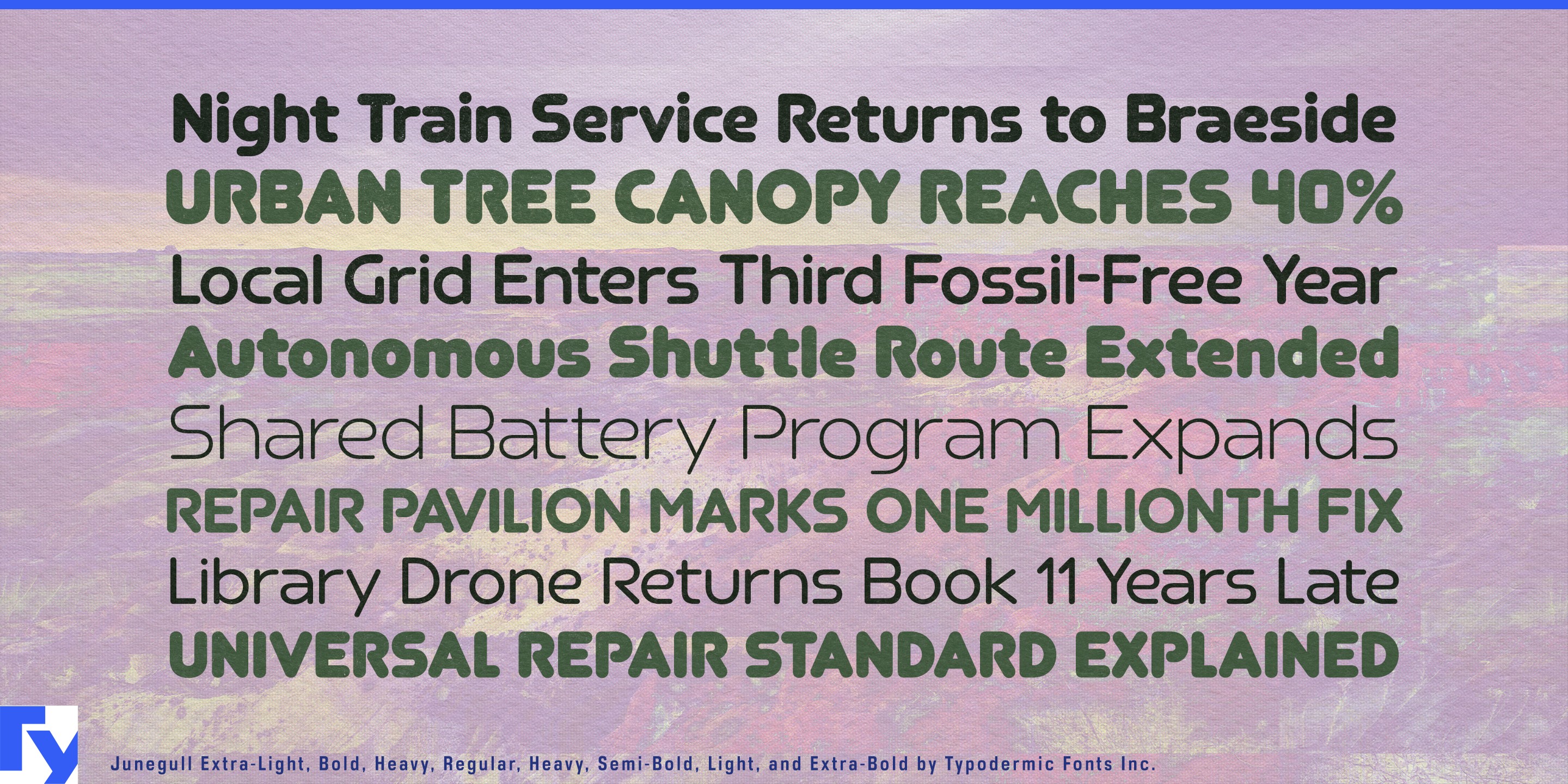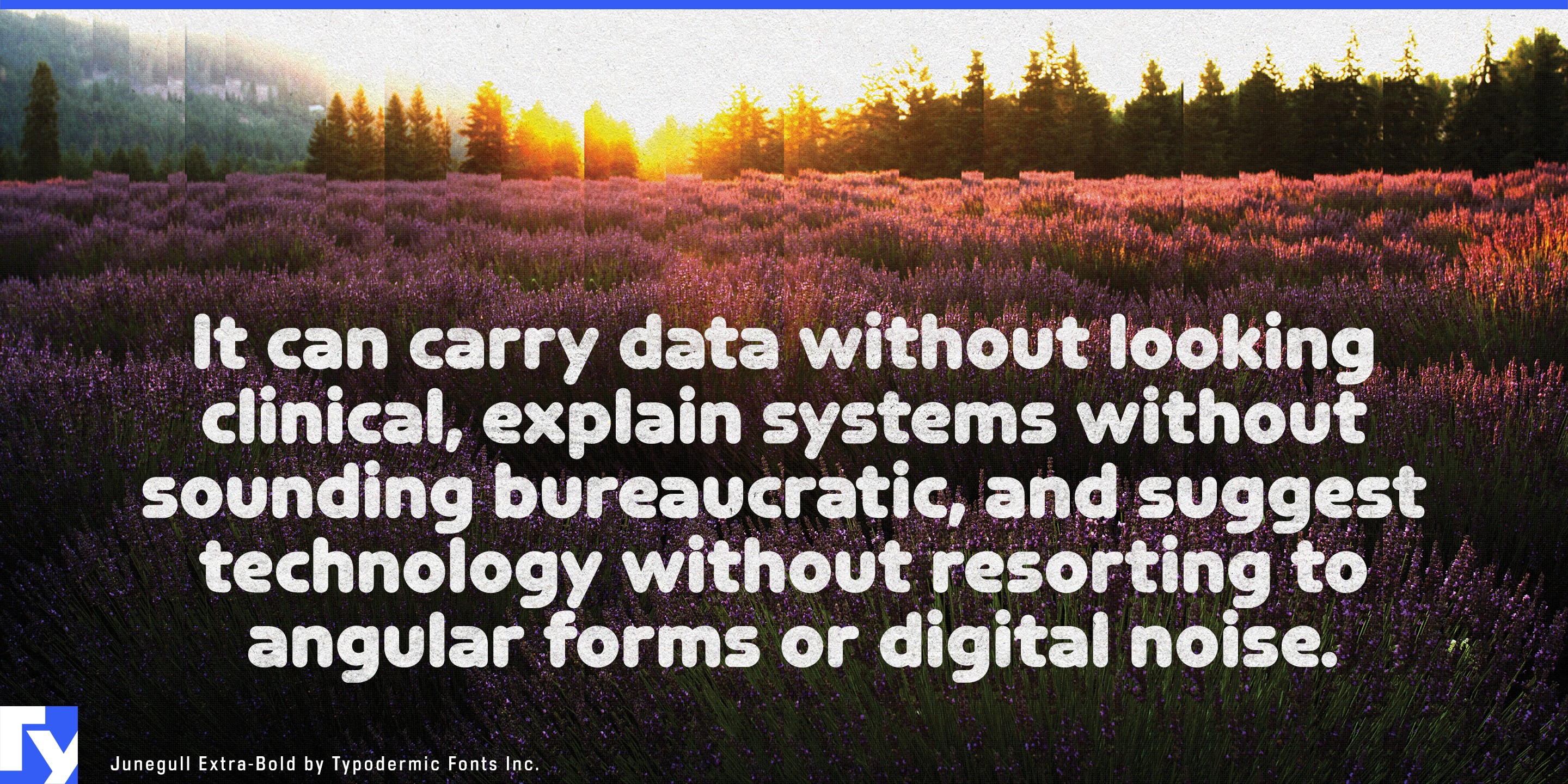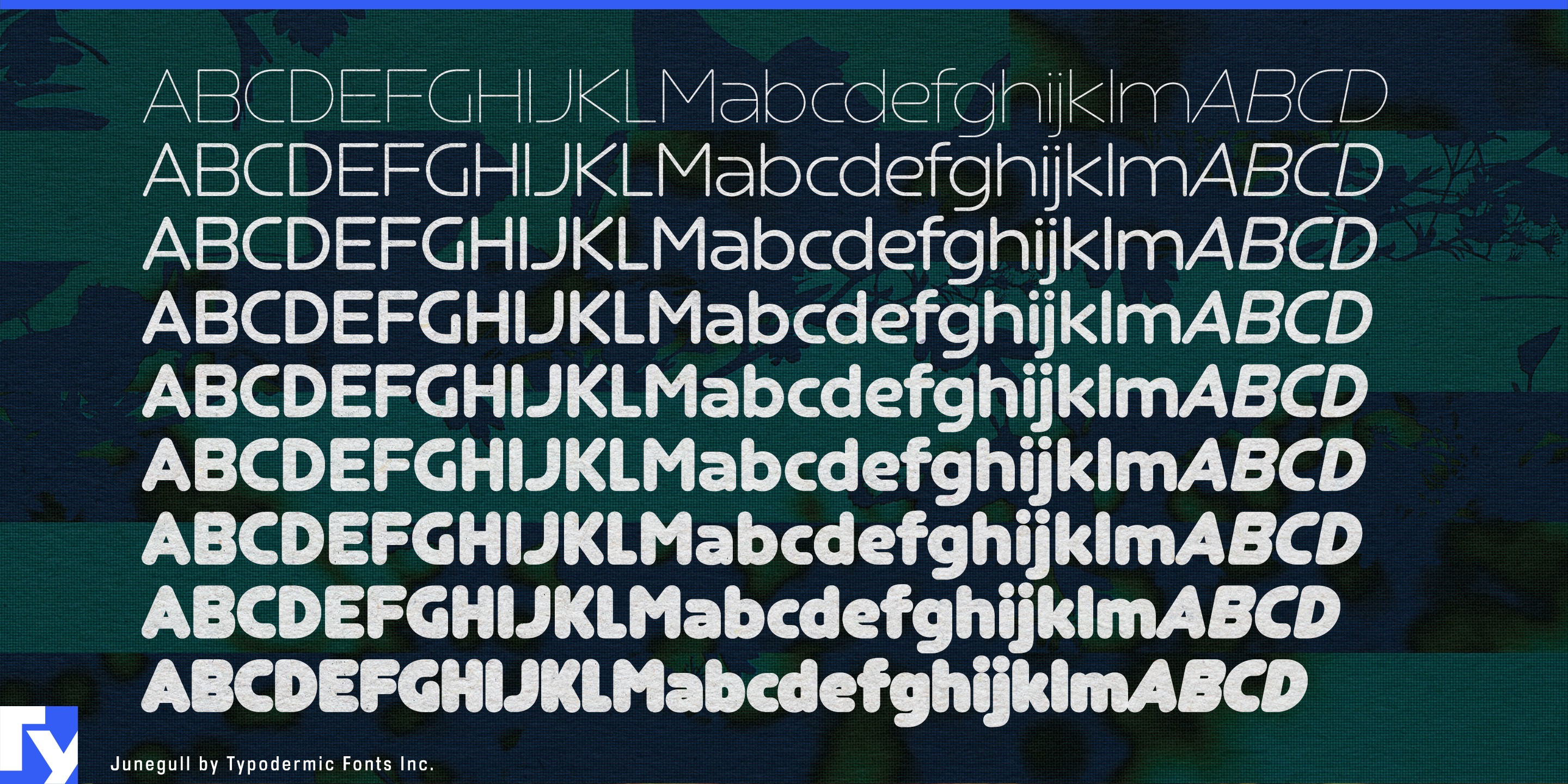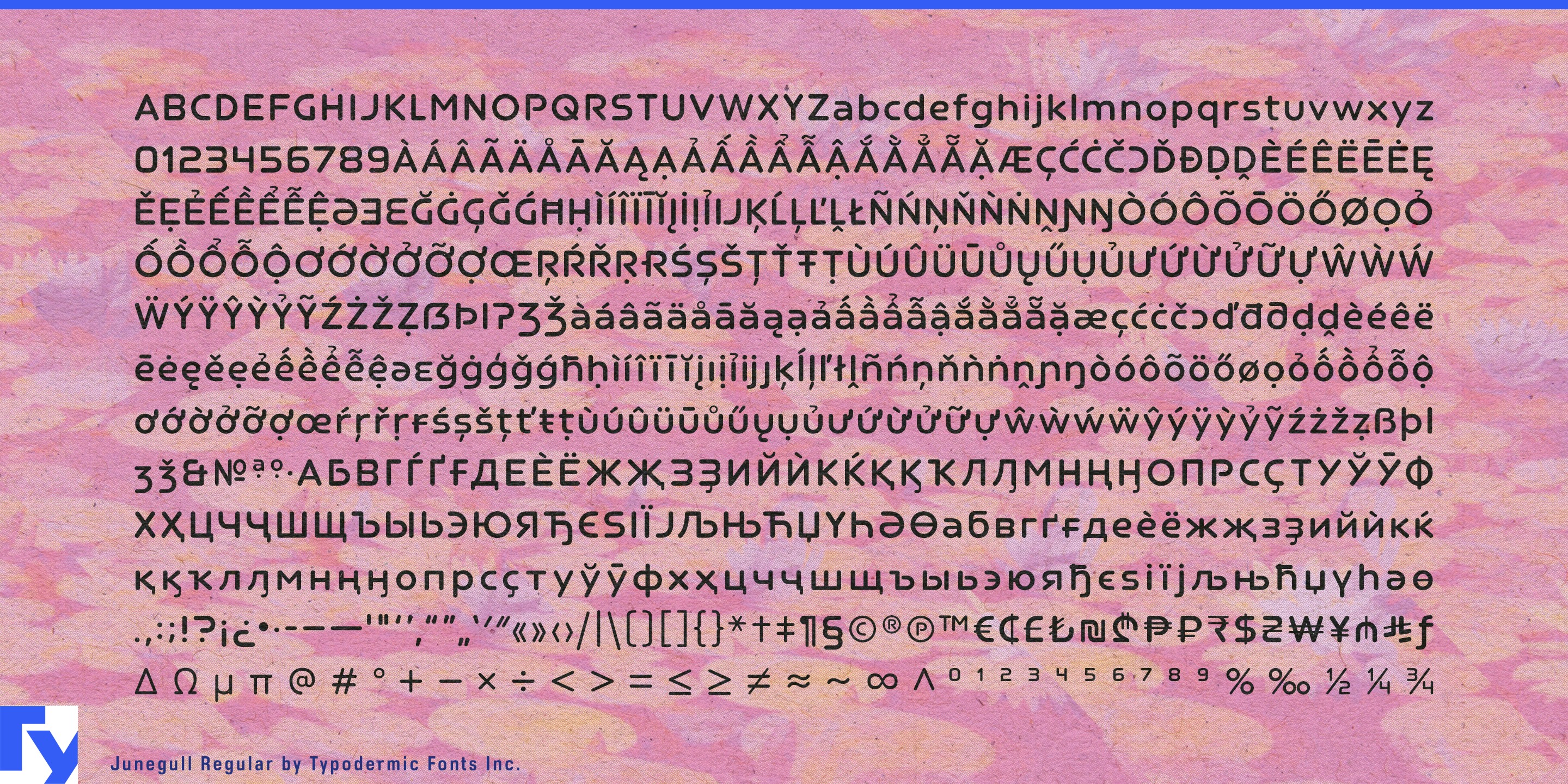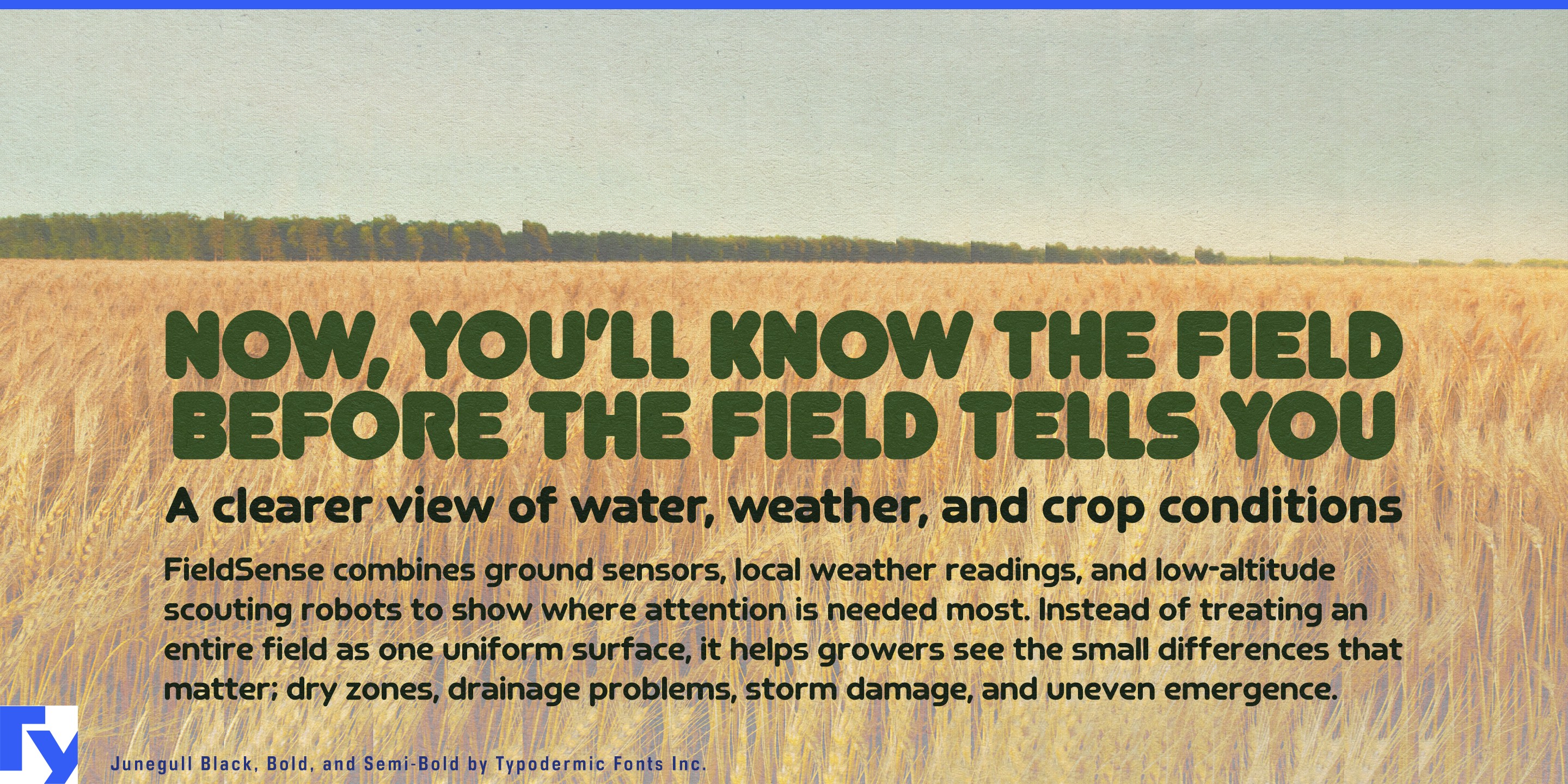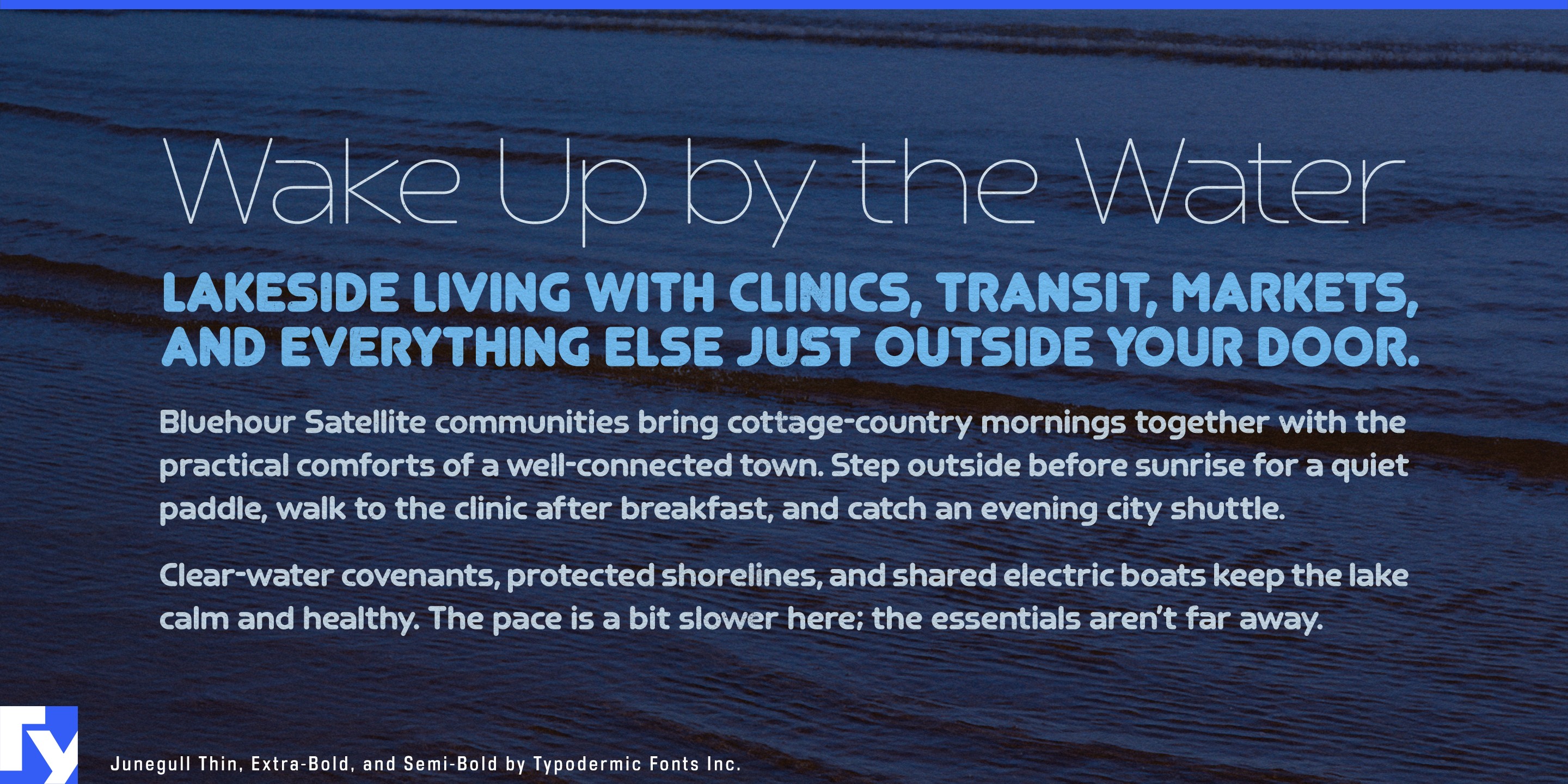
Junegull
Many rounded display faces are excellent at announcing something and much less useful when the design has to explain it. Their fattest styles make memorable names and headlines, but supporting information often gets handed off to another family. Junegull was built to let that rounded visual language keep going.
At the heavy end, Junegull has the broad, inflated presence of classic rounded display lettering, but its construction points in a more technical direction. Horizontal arms and terminals interrupt the softness, while the numerals borrow some of the squared logic of calculator digits. The result can feel cheerful and substantial without becoming confectionery, and technological without relying on pixels, sharp angles, or overt sci-fi styling.
The weight range is tuned for different typographic jobs rather than following a simple progression from loose to tight. Bold and Extra-Bold retain enough spacing for smooth reading even as the forms become substantial. In the very heaviest weights, the fit tightens deliberately, allowing short words to cover more of the surface and become dense blocks of rounded shape. Junegull also carries a fully developed lowercase deep into those heavy weights, so the same visual language can move from oversized headings into product names, labels, instructions, and short passages.
That makes Junegull especially useful around technology intended to be understood, handled, and enjoyed: programmable robots, electronics kits, synthesizers, weather instruments, science-centre exhibits, classroom experiments, model rockets, maker hardware, and technical toys. Its distinctive figures suit temperatures, settings, scores, dimensions, readings, model numbers, and other information where numerals contribute to the character of the design.
The same qualities work well for environmental and civic systems such as agricultural sensors, greenhouse controls, community energy projects, electric transit, water monitoring, conservation exhibits, recycling programs, and public research. With nine weights and matching italics, Junegull can move from surface-filling display words through headings, diagrams, labels, specifications, captions, and short explanatory copy without abandoning its rounded technical identity.